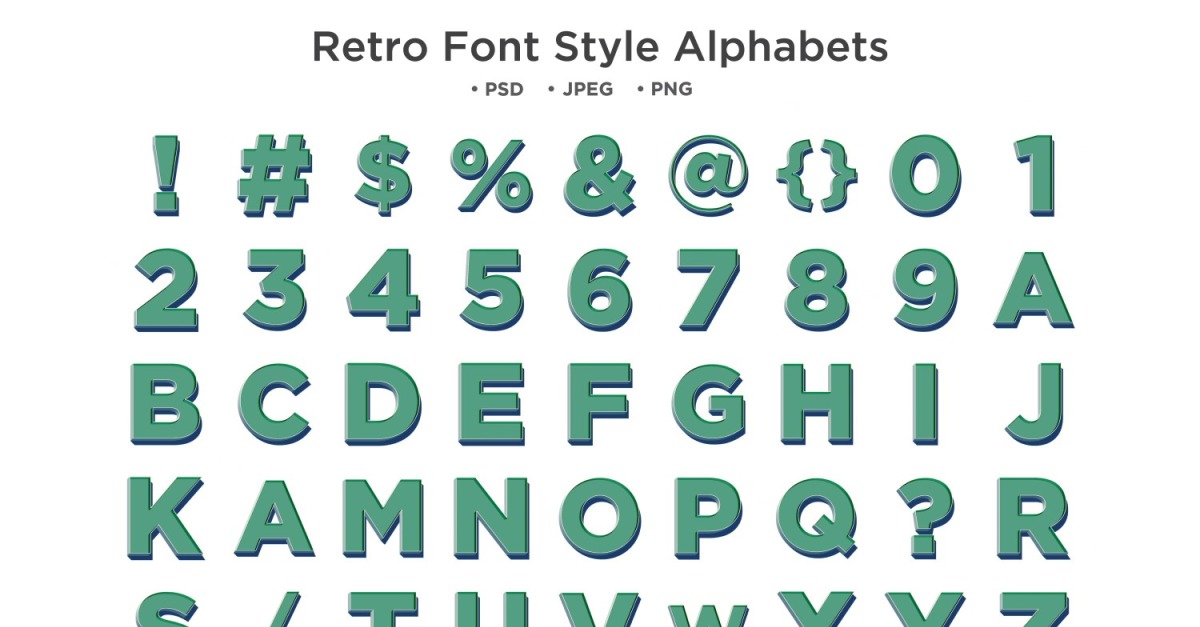
Retro Font Style Alphabet, Abc Typography
Alphabet, typeface, letters and numbers, typography pack. That includes fully customizable vector alphabet with numbers, the whole pack is very easy to work with; each letter or number is separate PSD file for easy to change text fonts style or color changing. This pack might be very useful to create nostalgic event posters, groovy looking flyers, playful invitations and lots of other awesome things. Have fun using it.